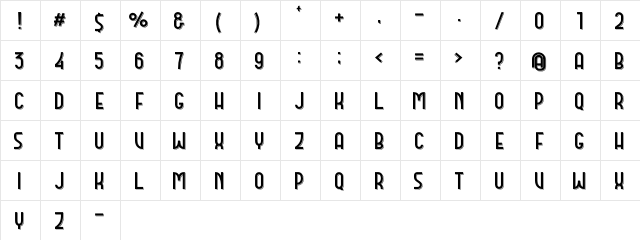
DOMCO 02 Regular
Design Context for DOMCO 02 Typeface
DOMCO 02 is a composed and adaptable typeface that performs quietly and consistently across a wide range of design contexts.
Pro Tip: Use DOMCO 02 in both headline and body roles to test its range before committing to a single application.